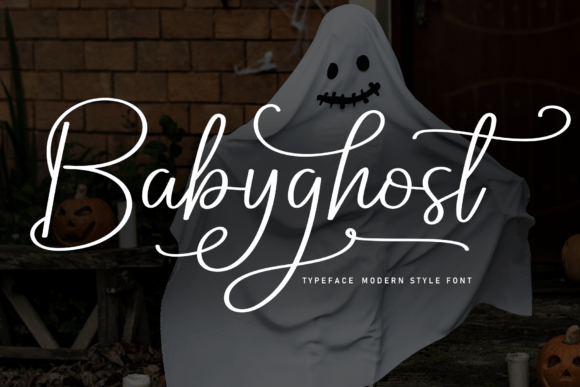
Welcome to the world of Babyghost Font, a captivating calligraphic script font that will redefine your creative horizons! Step into a realm where elegance meets modernity, where your projects will flourish with a touch of timeless beauty. Babyghost Font is not just a font; it's an experience that will ignite your imagination and bring your artistic visions to life.
With its exquisite hand-drawn characters, Babyghost Font captures the essence of classic calligraphy while injecting a breath of fresh air. Its graceful curves and delicate swashes dance across the page, evoking a sense of wonder and sophistication. Dive into a world where your words transform into mesmerizing works of art, leaving an indelible mark on the hearts of your audience.
Embrace the versatility of Babyghost Font. Its wide range of styles, from regular to bold, and its extensive language support, make it the perfect choice for a myriad of projects. Craft stunning logos that exude elegance, design breathtaking invitations that speak of love and joy, or create social media posts that captivate and inspire. The possibilities are endless, and the results are always mesmerizing.
Unleash your creativity and let Babyghost Font take you on a journey of self-expression. Its enchanting characters will add a touch of magic to your digital art, branding projects, and personal designs. Experience the joy of creating beautiful and meaningful content that resonates with your audience, leaving them spellbound and eager for more.
Step into the realm of Babyghost Font and let your imagination soar. Discover a world where timeless beauty meets contemporary charm, and where your creative dreams come to life. Join the ranks of those who have been captivated by its allure and experience the transformative power of a truly exceptional font.